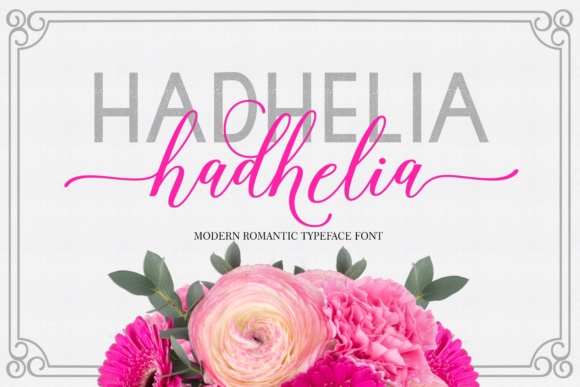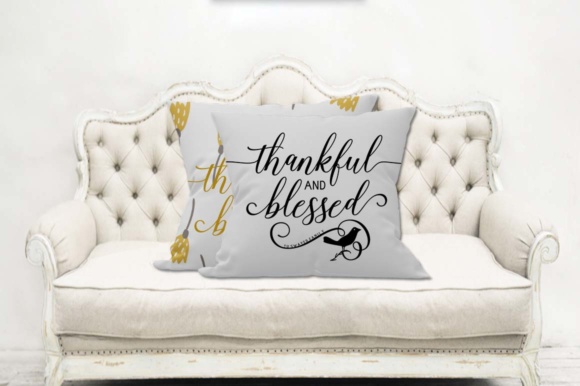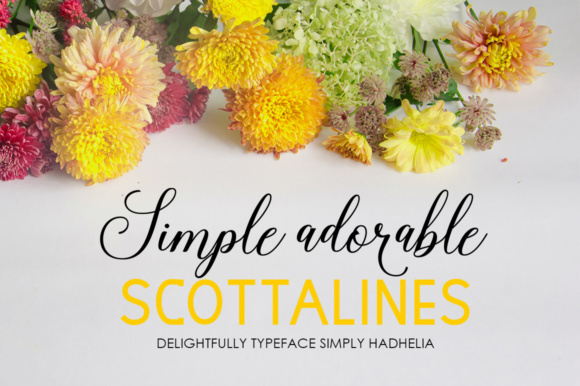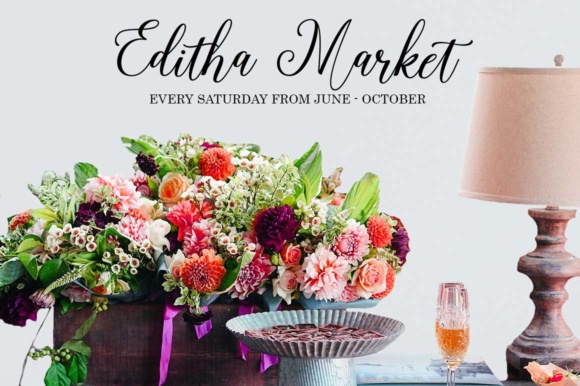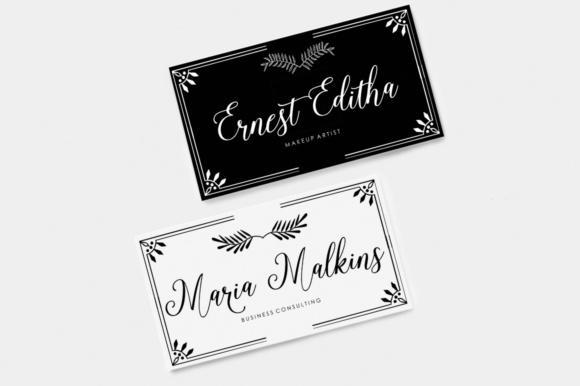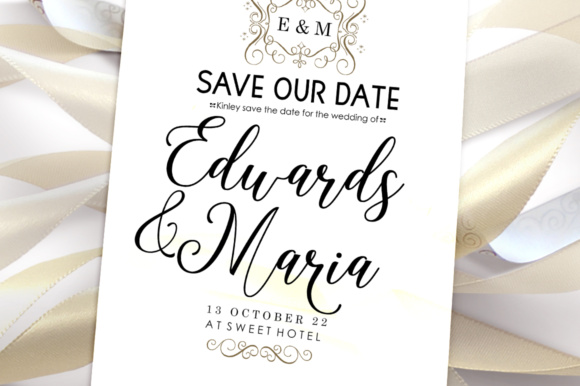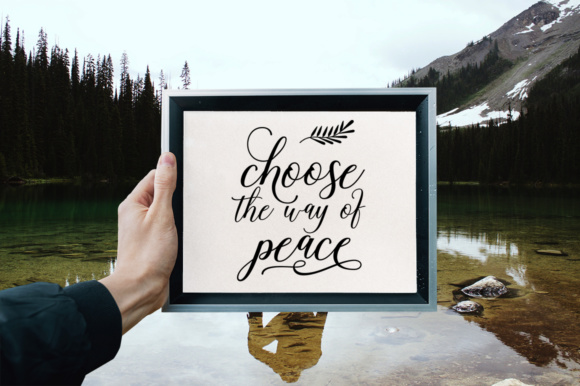
Hadhelia Script Font
Hadhelia Script is a modern calligraphy design. With it’s beautiful, feminine swashes, Hadhelia can used for various purposes such as logo, product packaging, wedding invitations, branding and much more!